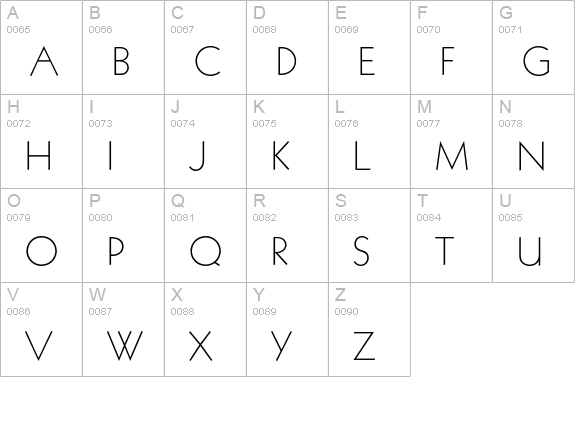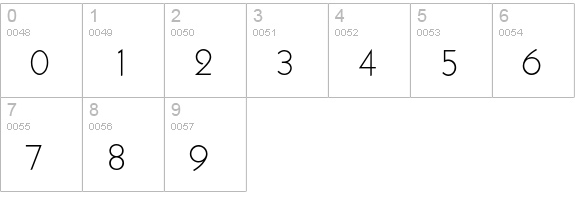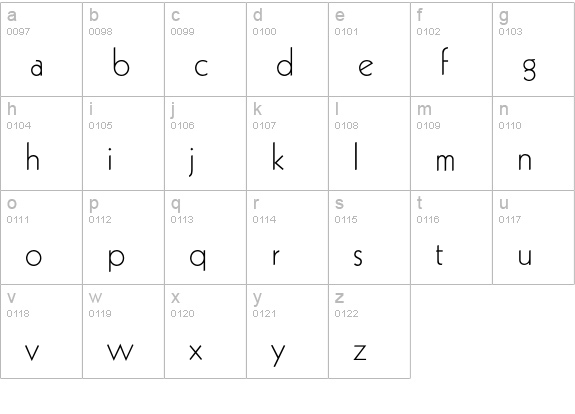
Kabel* STEMPEL Light is a refined, elegant variant in the Kabel* typeface family \xE2\x80\x94 well suited to elegant body text, refined sub-headings, and luxury branding.
The Kabel* STEMPEL Light font is a delightful and elegant typeface that is perfect for adding a touch of sophistication to any design project. It exudes a sense of modernity and simplicity, making it suitable for a wide range of applications, from branding and advertising to web design and print materials. With its clean and crisp lines, Kabel* STEMPEL Light is incredibly legible, ensuring that your message will be conveyed with clarity and precision. Its subtle curves and balanced proportions give it a timeless appeal, making it a versatile choice that can be used for both formal and informal projects. One of the most appealing aspects of this font is that it is available for free download at FontsMarket.com. This means that you can access this elegant and professional typeface without any cost. Whether you are a professional designer or a hobbyist, having access to such a high-quality font at no expense is a fantastic opportunity to elevate your design work. The Kabel* STEMPEL Light font is compatible with various design software and can be easily integrated into your creative projects. Its versatility allows it to be used in various sizes, whether you need it for headlines, body text, or captions. Its clean and modern aesthetic will instantly enhance the visual appeal of your designs and create a polished and professional look. With its free availability at FontsMarket.com, Kabel* STEMPEL Light font presents an incredible opportunity to elevate your design work without breaking the bank. Don't miss out on the chance to add this elegant and versatile typeface to your font library. Download it today and let your creativity flourish.